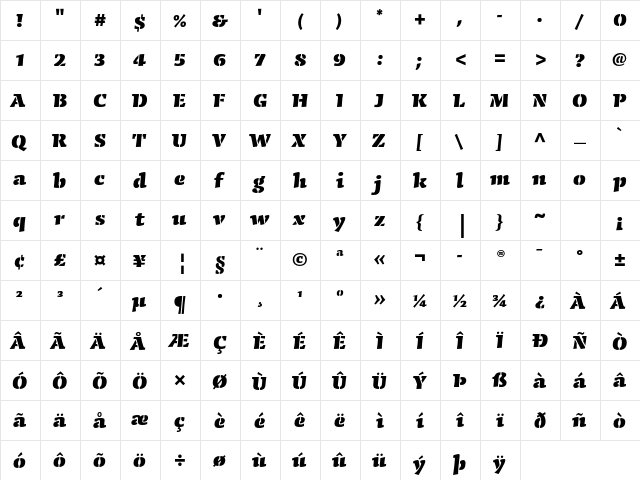
Conga Brava Stencil Std Black
| Designer | Michael Harvey |
Design Context for Conga Brava Stencil Std Typeface
Conga Brava Stencil Std borrows the utilitarian aesthetic of stencil lettering, with its characteristic cutaways and no-frills construction lending an industrial edge.
A strong choice for packaging that needs edge, warehouse aesthetics, and rough-and-ready visual identities.
Pro Tip: Use Conga Brava Stencil Std at large sizes on packaging, posters, or apparel where the stencil cutaways read clearly. Avoid small sizes where those gaps become visual noise.